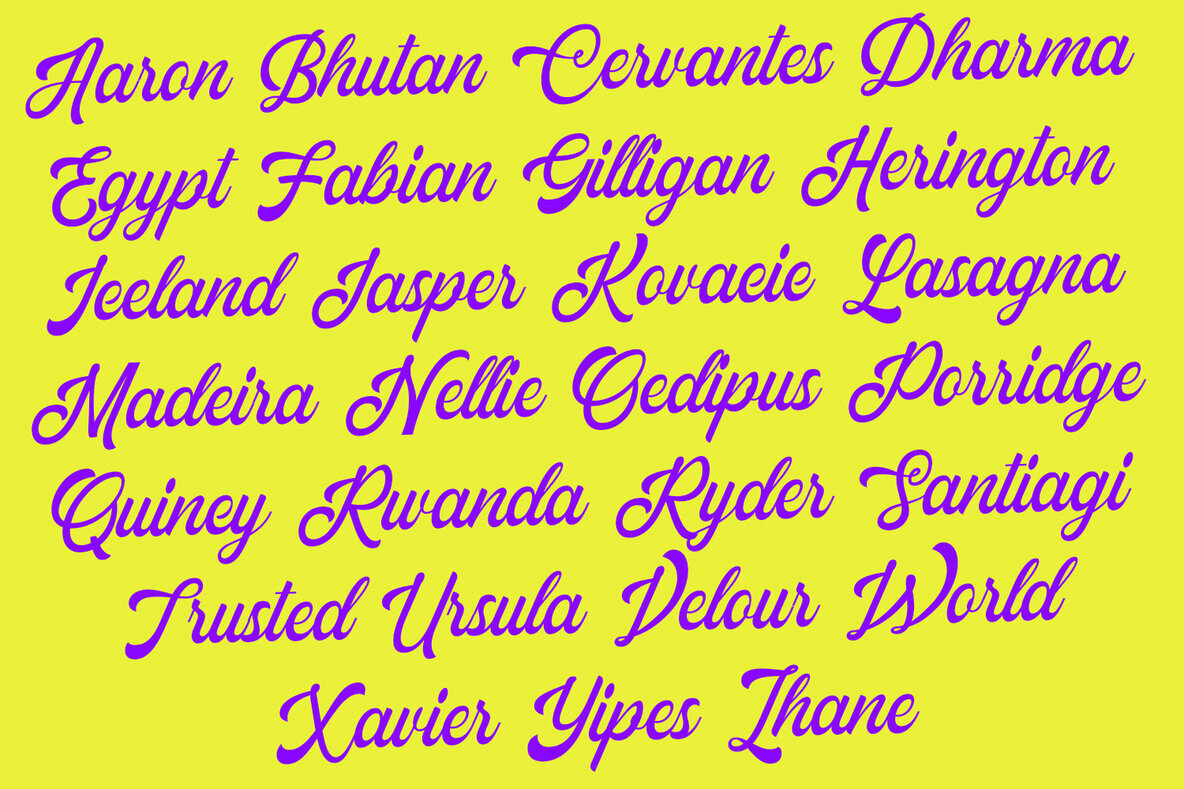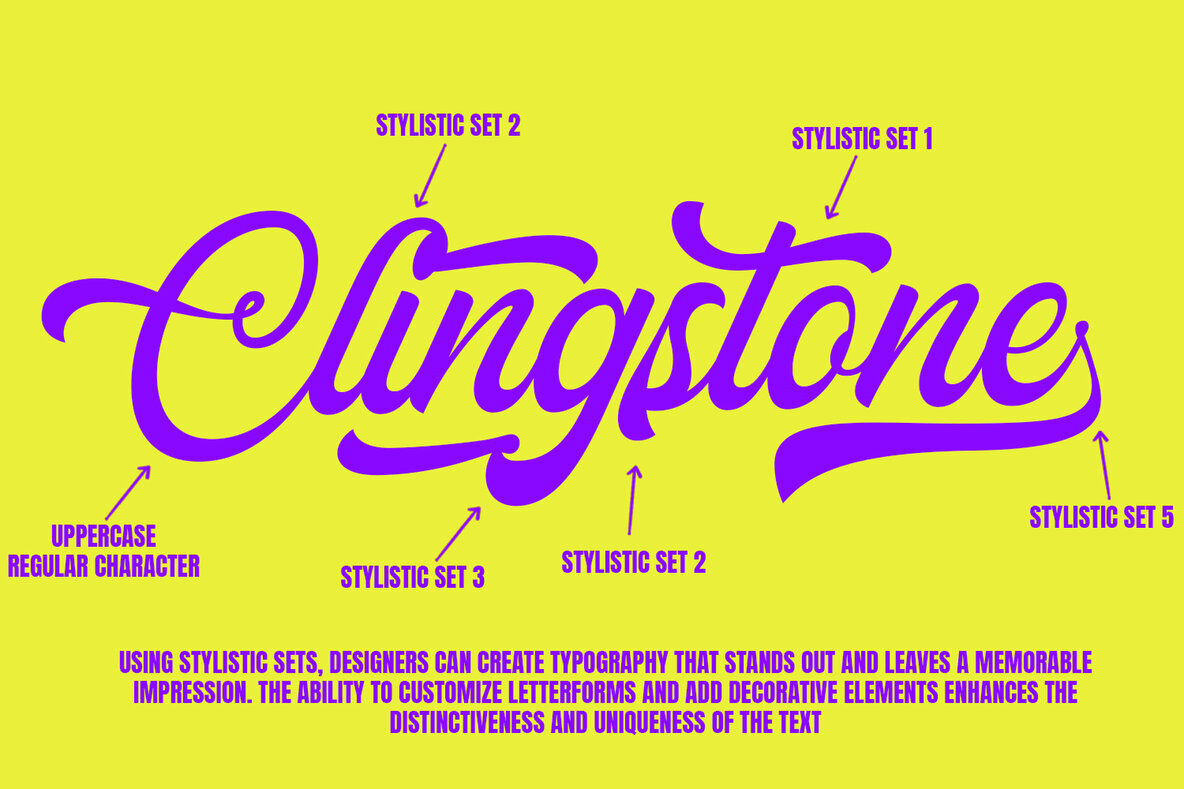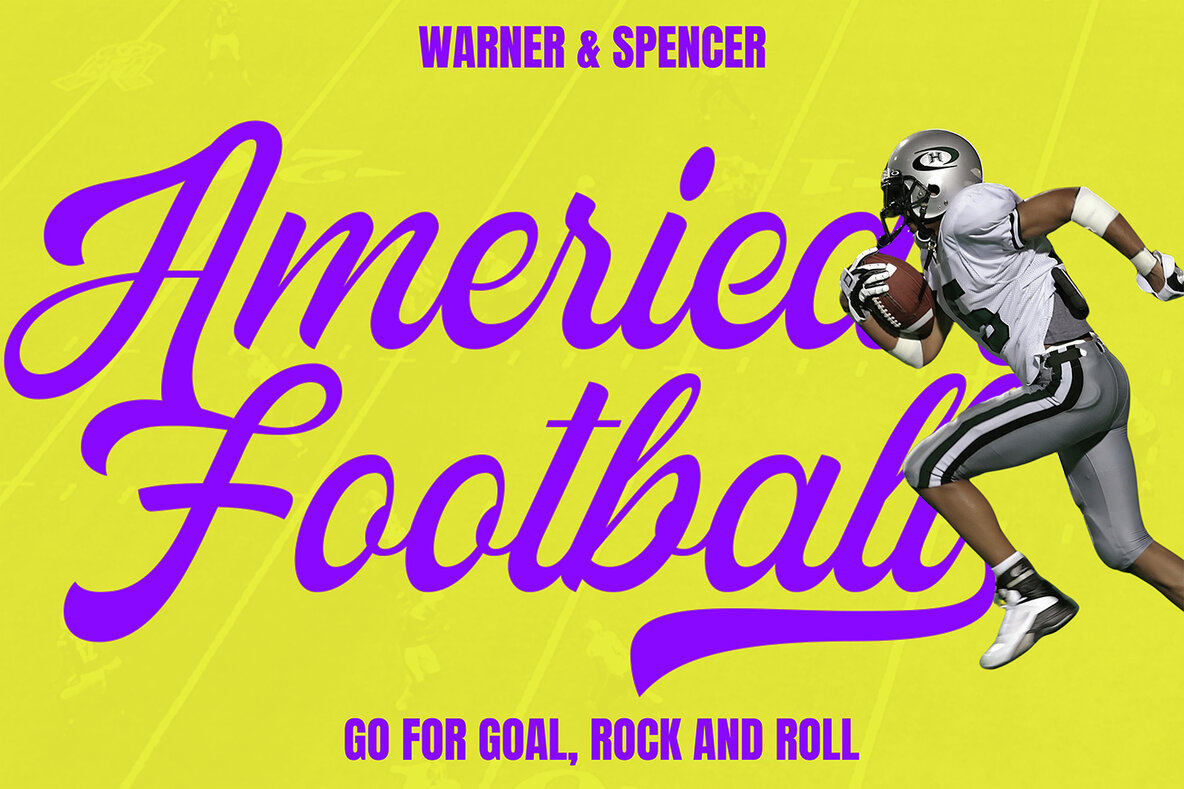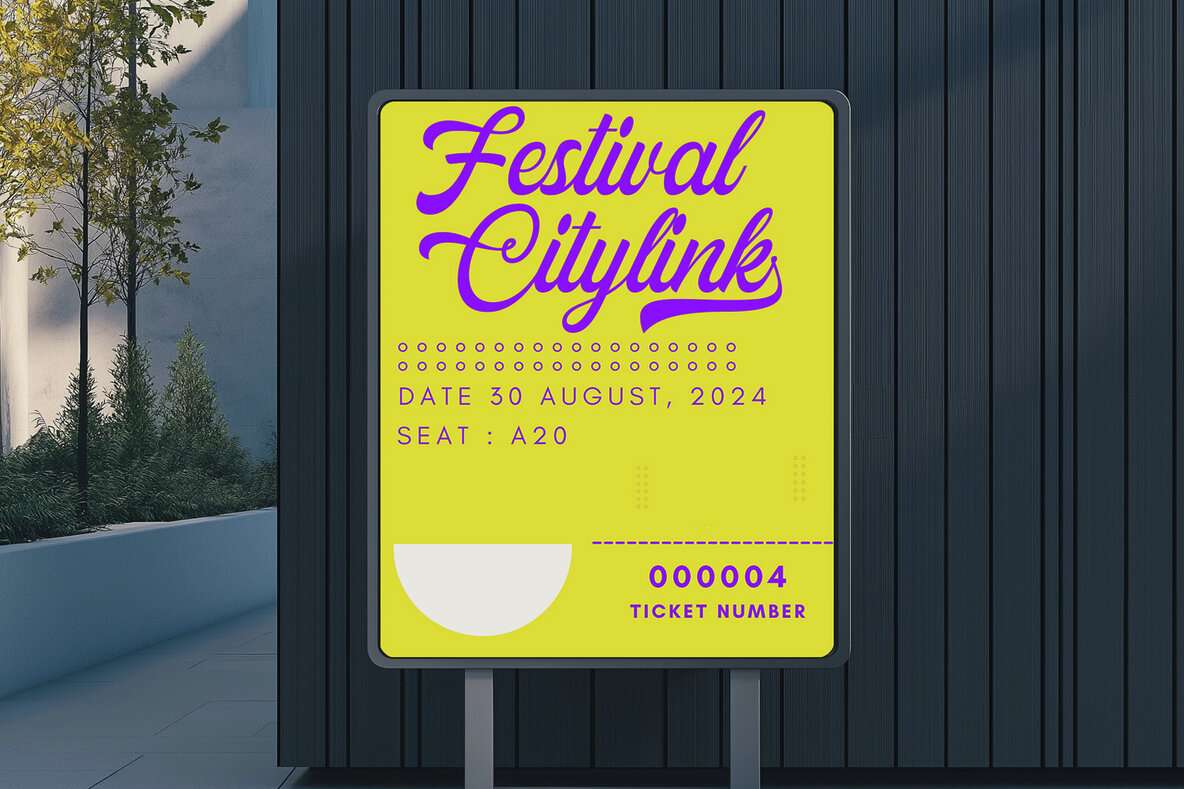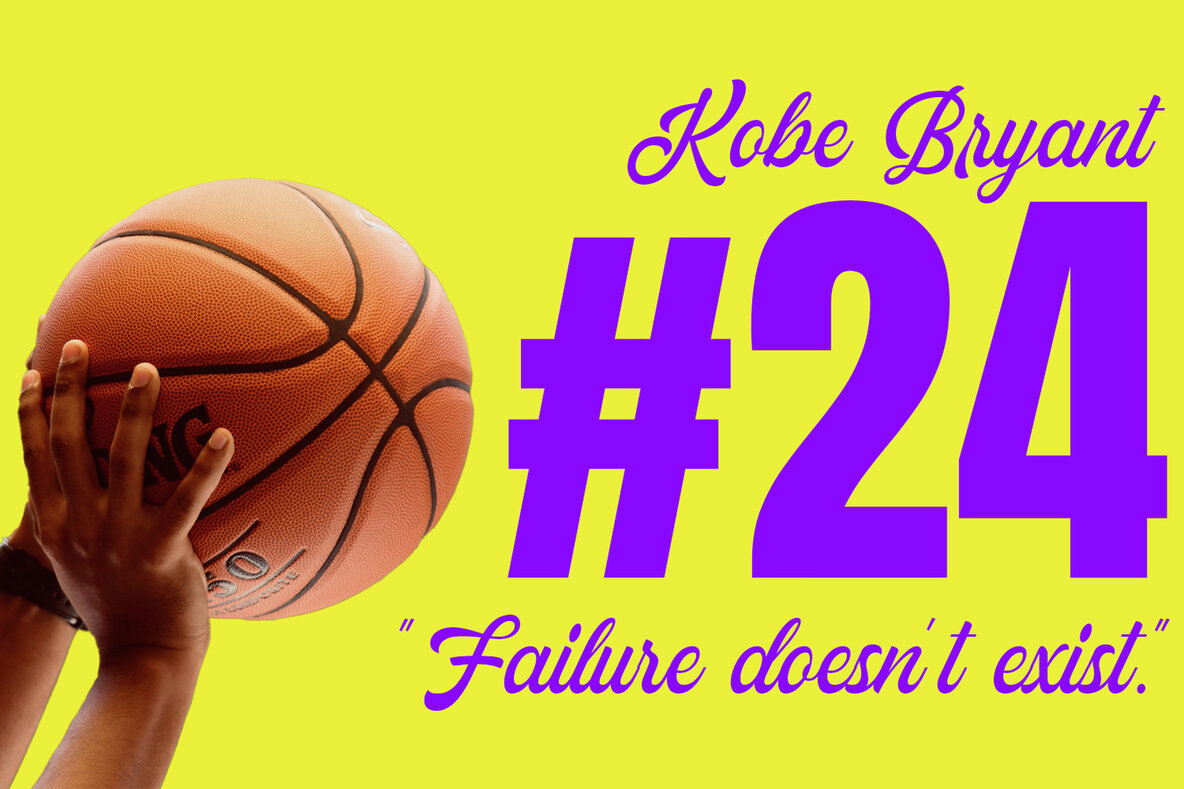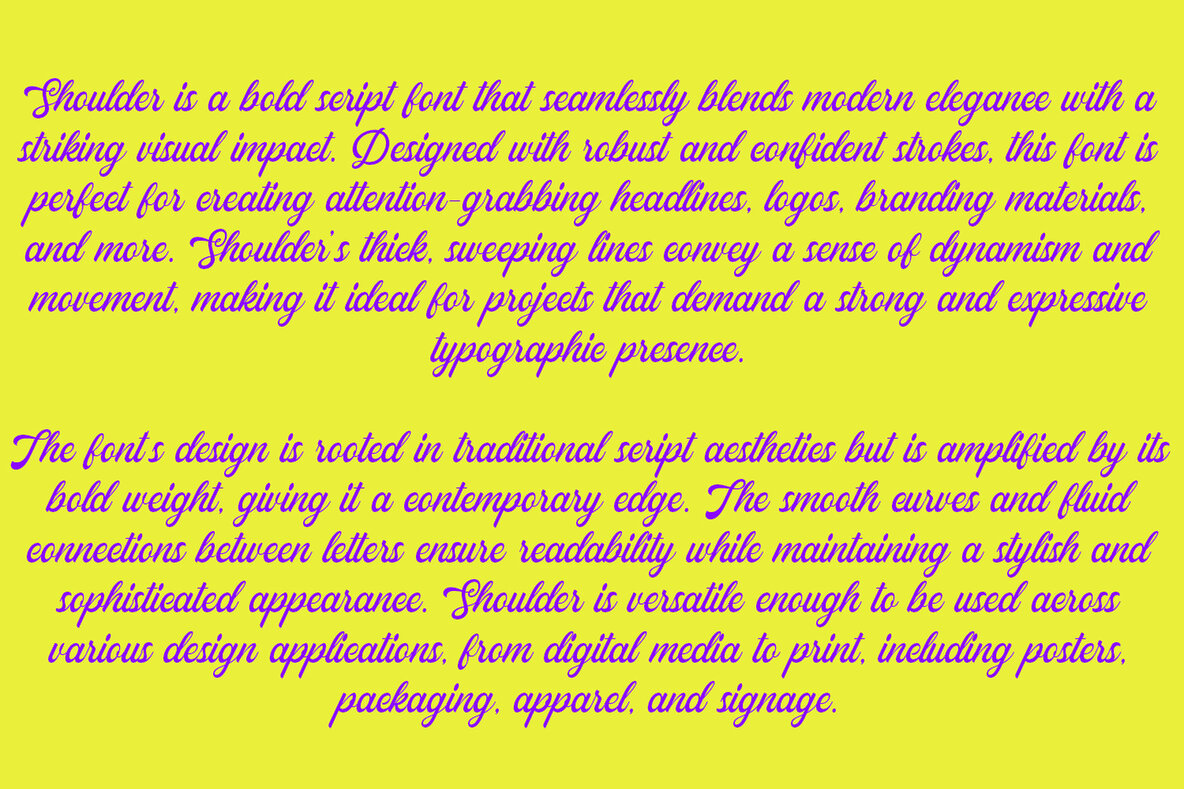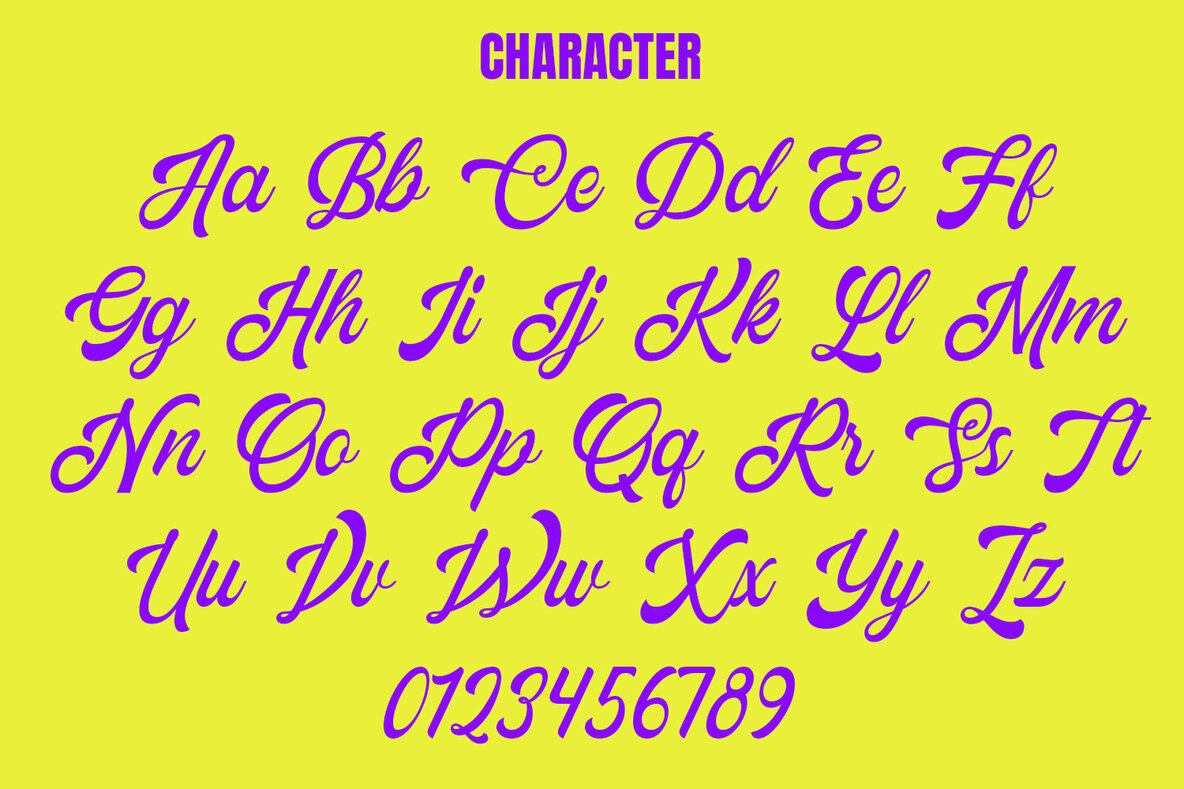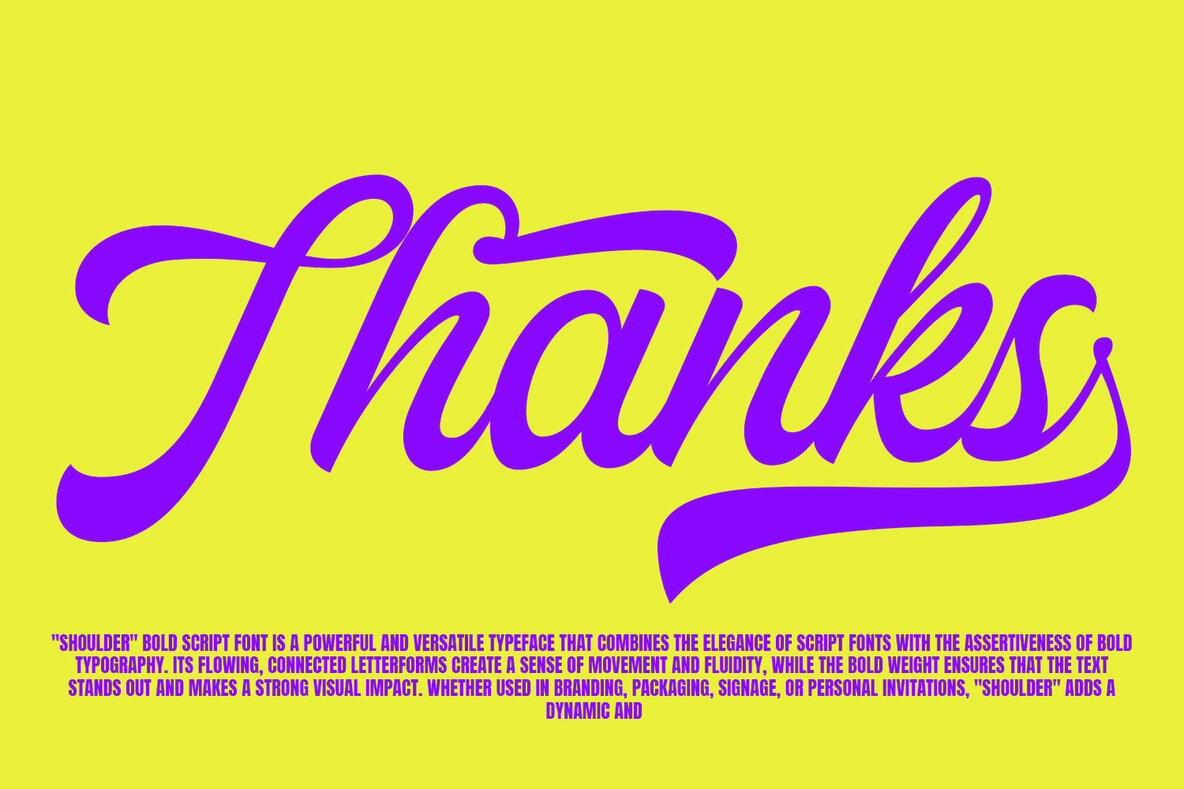
"Shoulder" is a bold script font characterized by its strong, flowing, and dynamic letterforms. This type of font is often used in designs that require a blend of elegance and assertiveness, such as logos, branding, headlines, and packaging. Here's a detailed explanation of the "Shoulder" bold script font: Shoulder Bold Script Font Font Style Design Characteristics Use Cases Aesthetic Appeal The "Shoulder" bold script font is a powerful and versatile typeface that combines the elegance of script fonts with the assertiveness of bold typography. Its flowing, connected letterforms create a sense of movement and fluidity, while the bold weight ensures that the text stands out and makes a strong visual impact. Whether used in branding, packaging, signage, or personal invitations, "Shoulder" adds a dynamic and engaging element to any design.